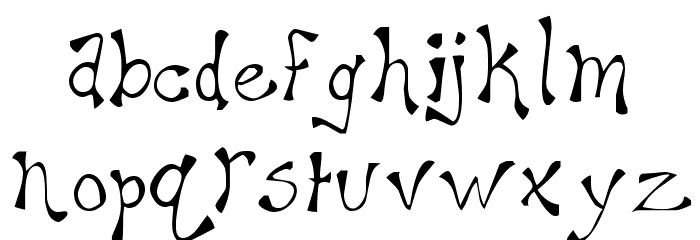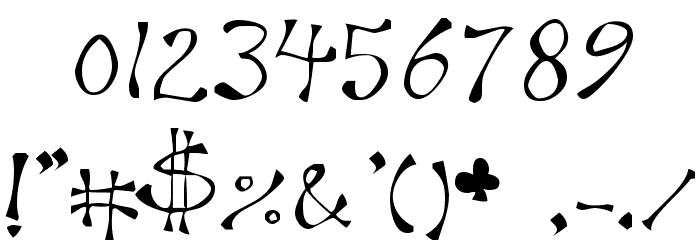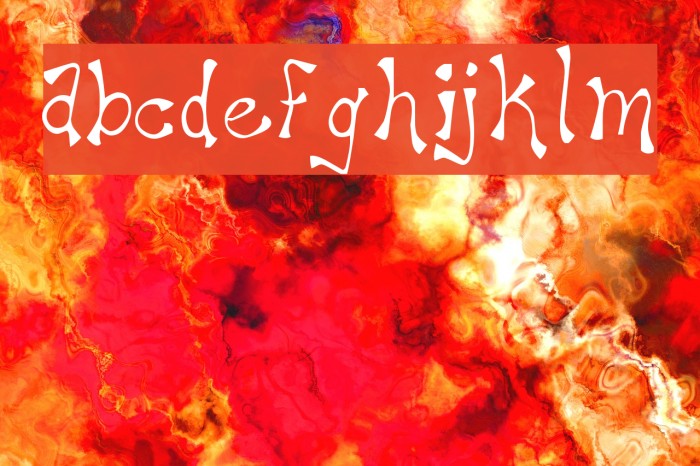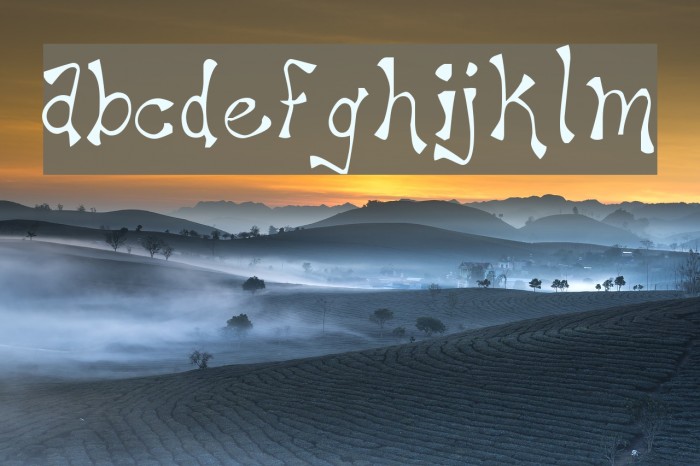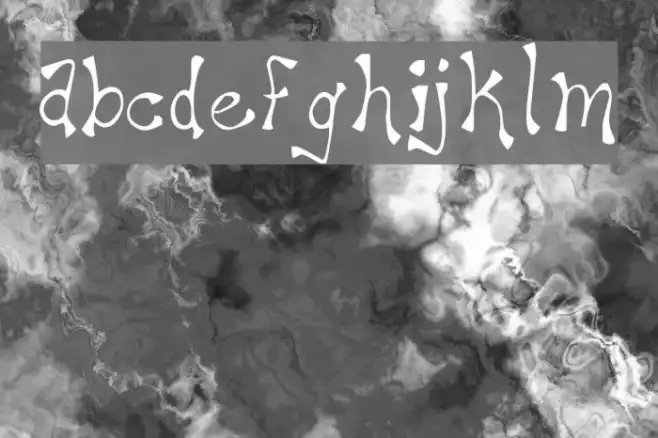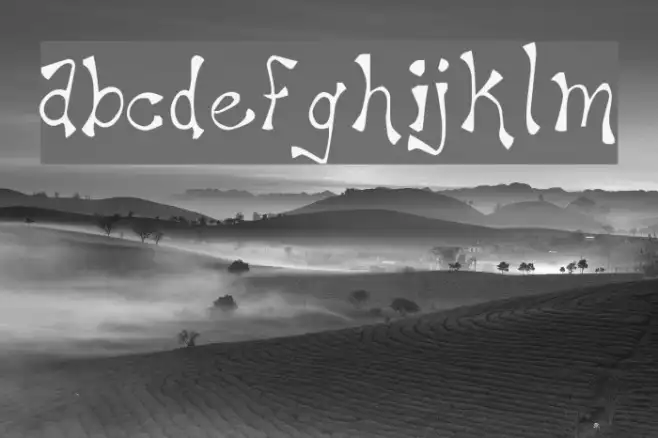
Maryellen Font
This font features a playful and whimsical design with a handwritten style. The characters are slightly irregular, giving it a charming and informal appearance. The strokes are varied in thickness, adding a dynamic and lively feel. The overall look is reminiscent of a casual script, with a touch of artistic flair. The font includes both uppercase and lowercase letters, numbers, and a selection of special characters, making it versatile for various design needs.
A playful, handwritten-style font with varied stroke thickness.
- Proposed Projects: Ideal for greeting cards, children's books, playful branding, and creative invitations.
- Overall Style: Whimsical
- Use Case: Headlines, Creative projects, Informal text